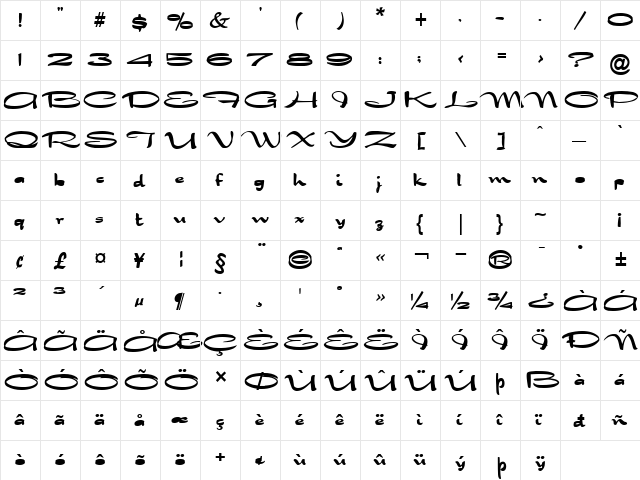
Dragonwyck Bold
Design Context for Dragonwyck Typeface
Dragonwyck is a composed and adaptable typeface that performs quietly and consistently across a wide range of design contexts. Its bold stroke weight gives it real presence on the page.